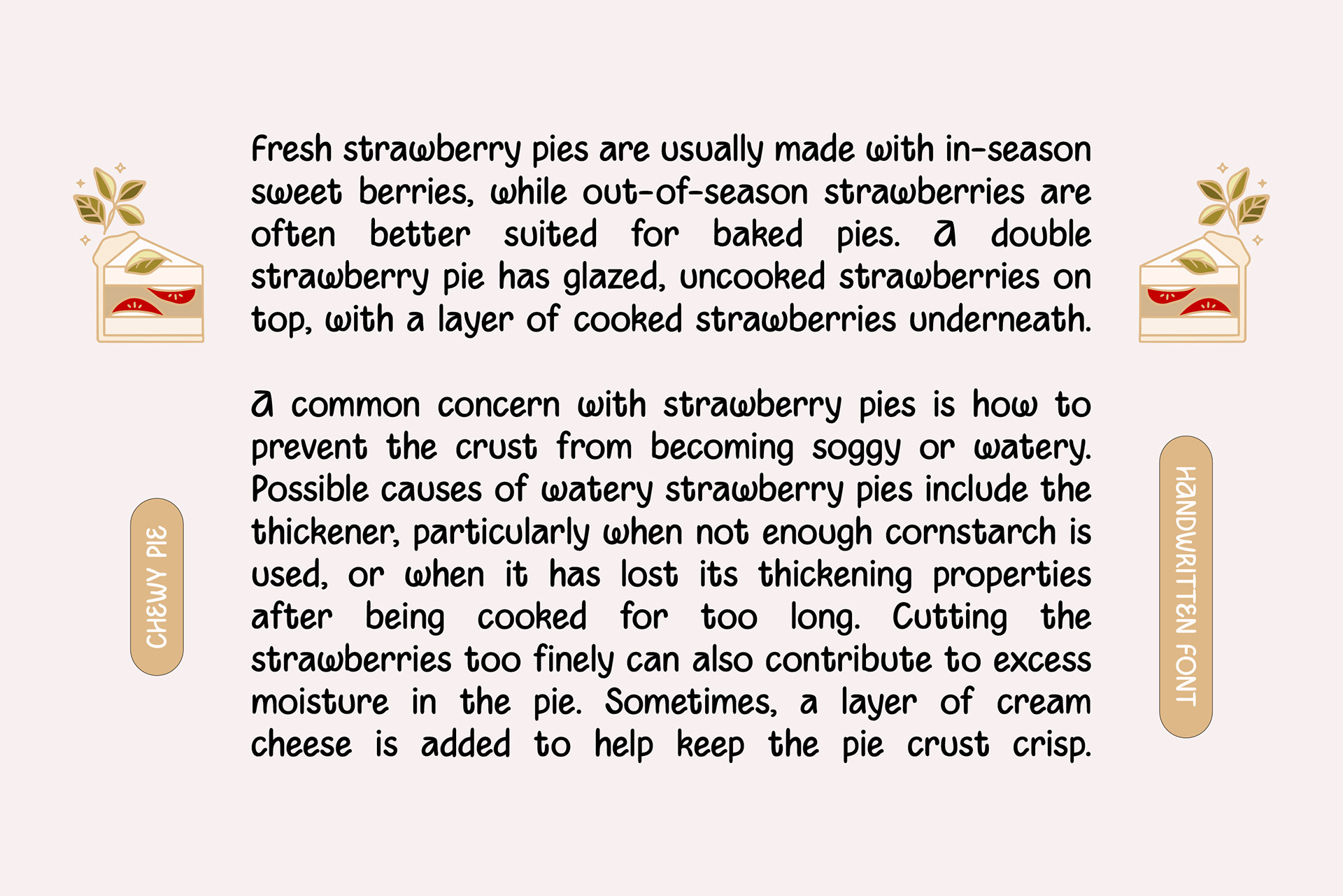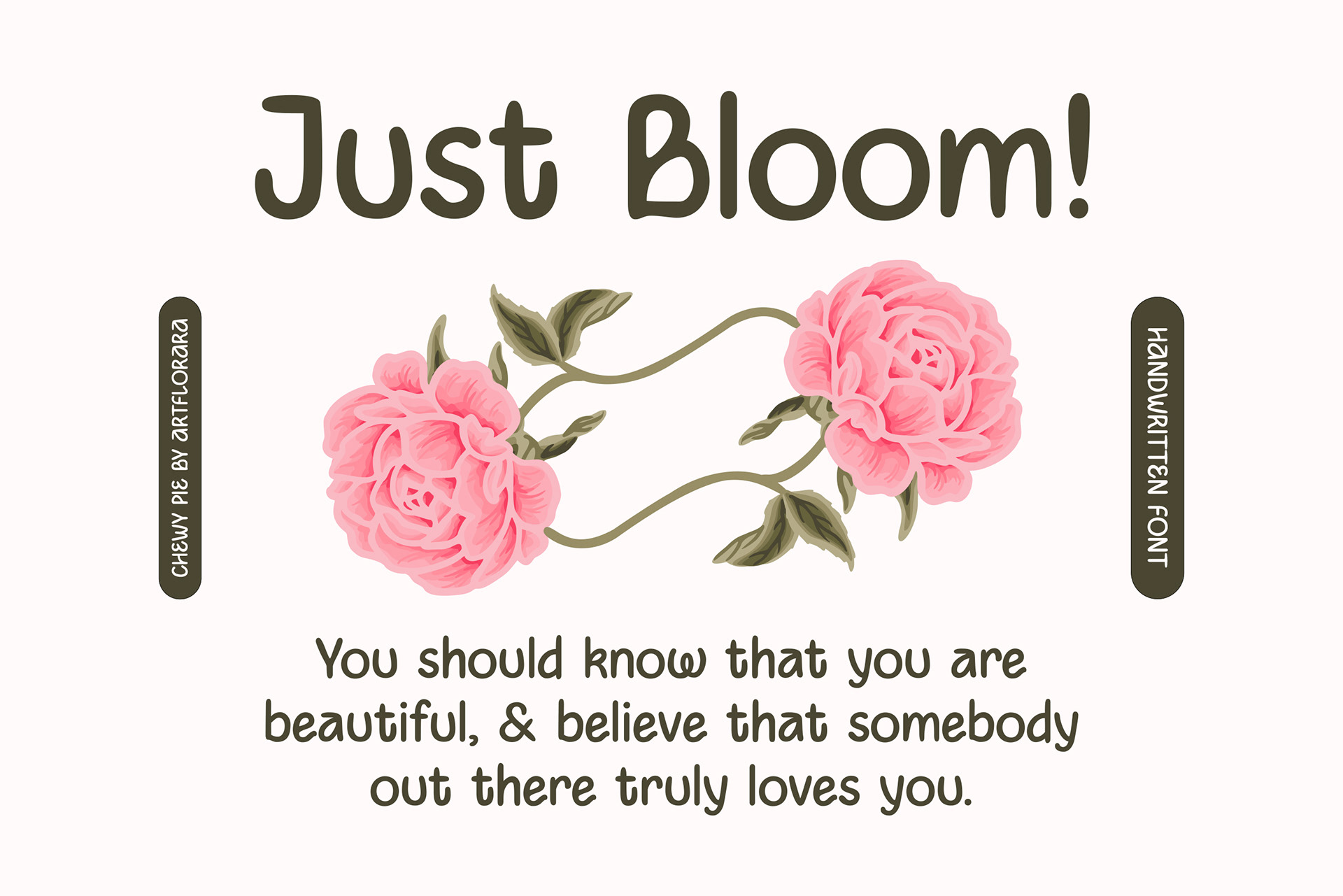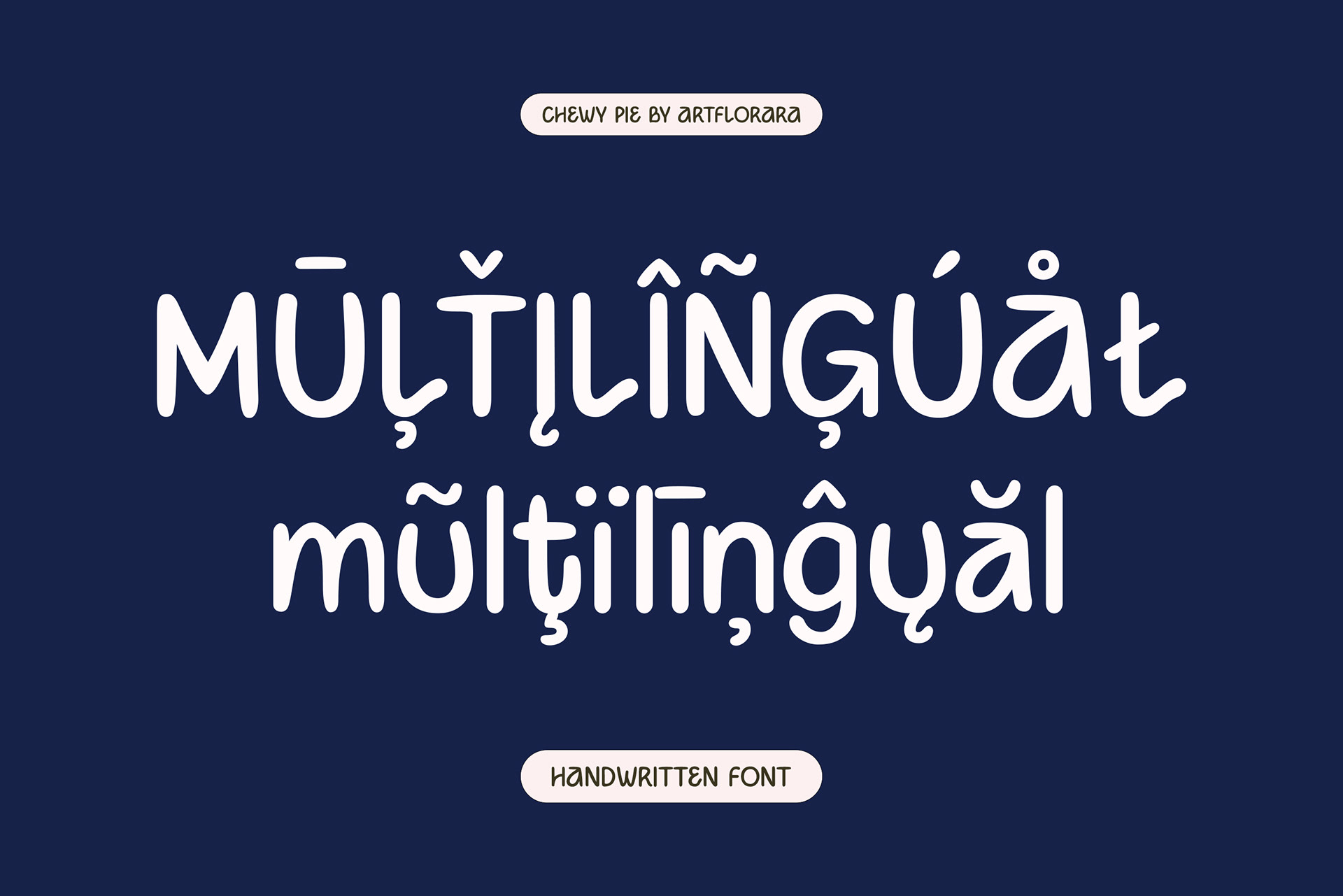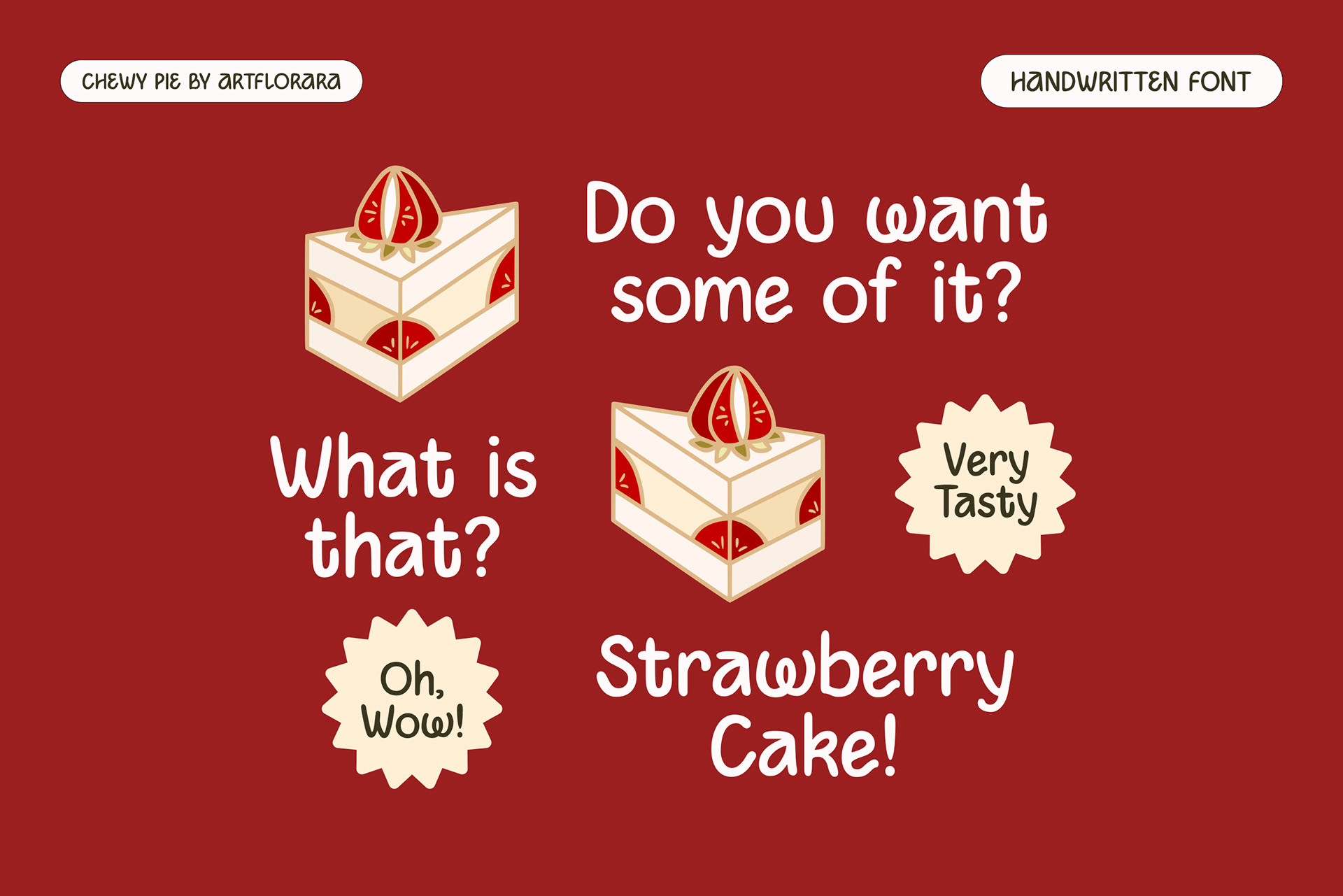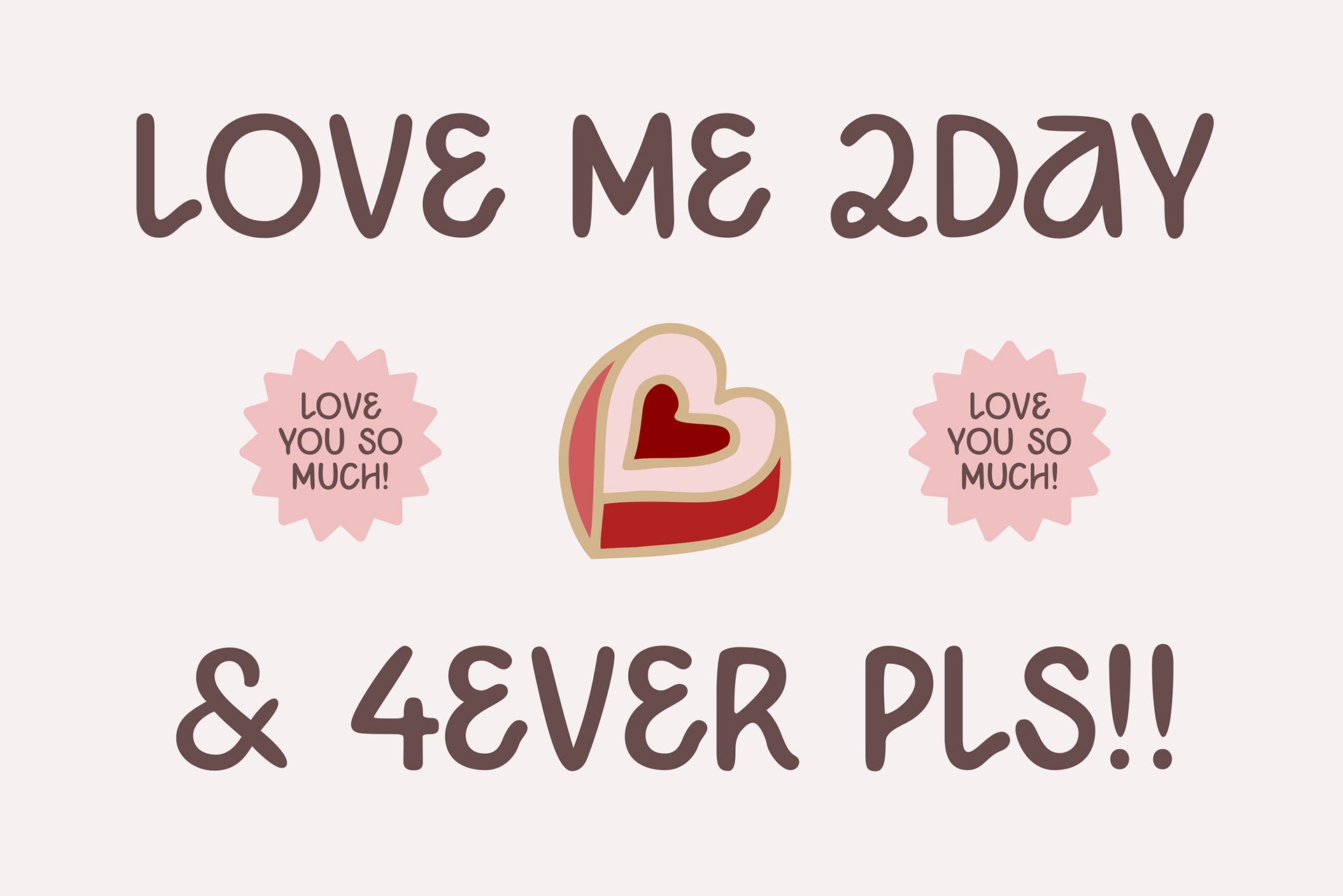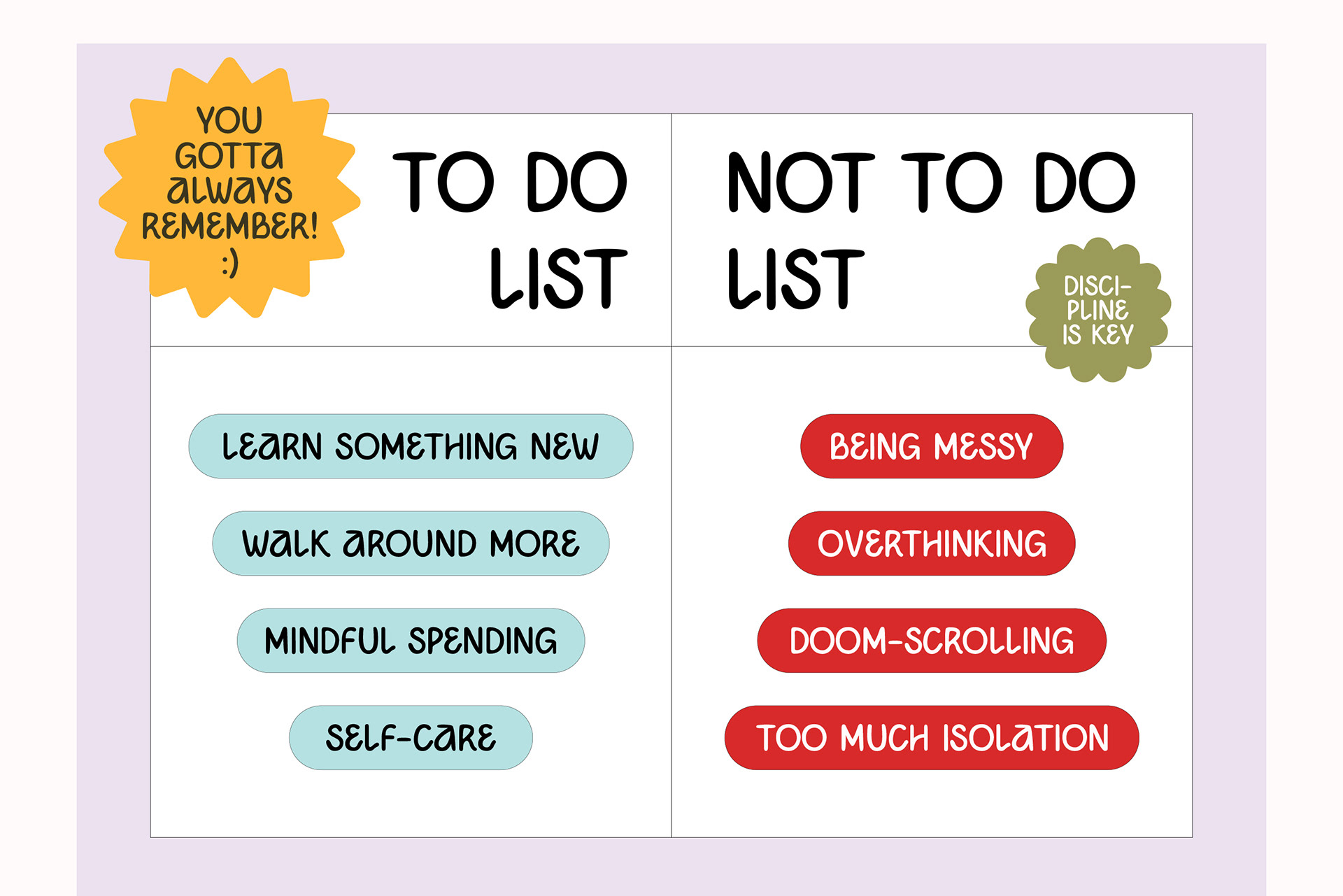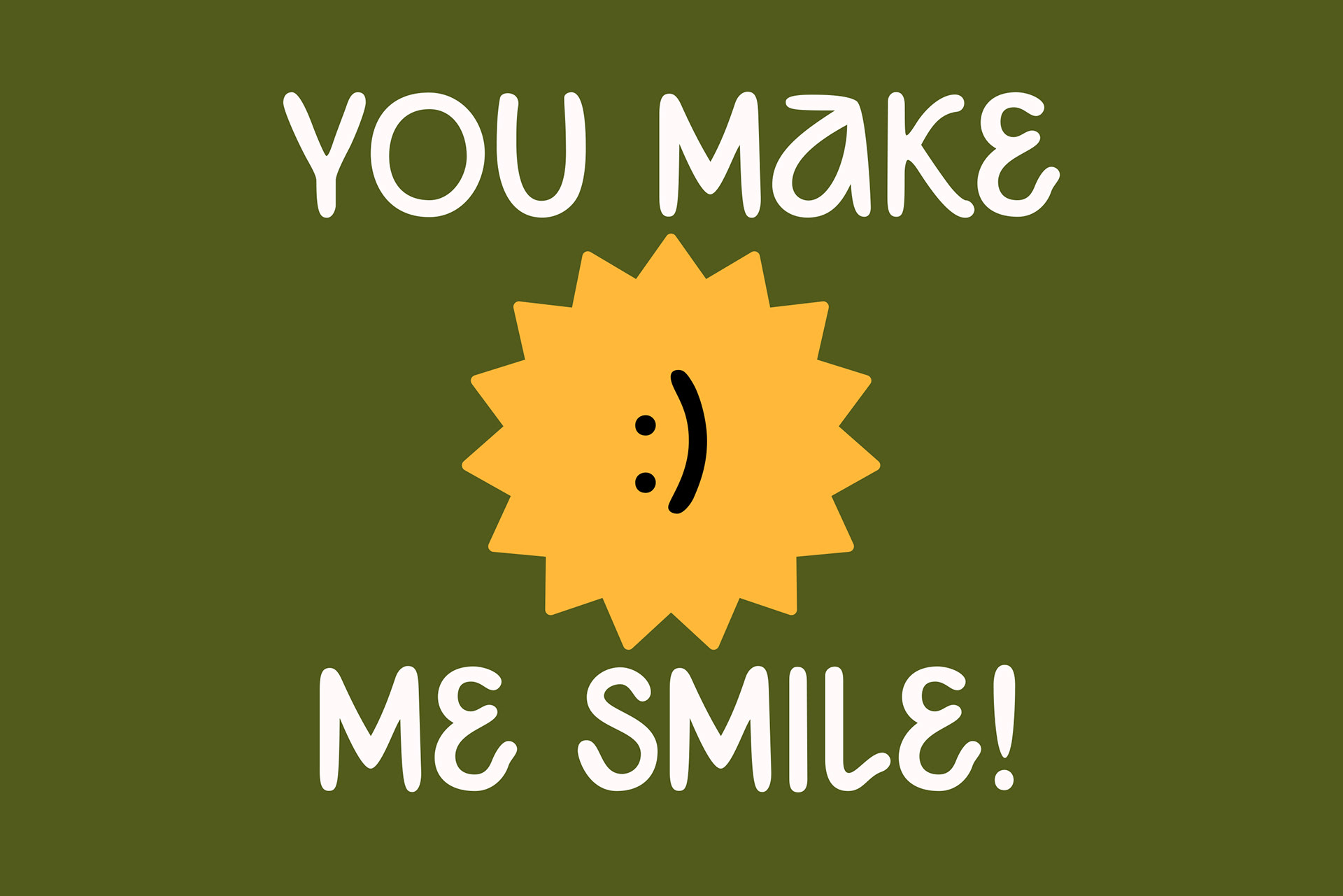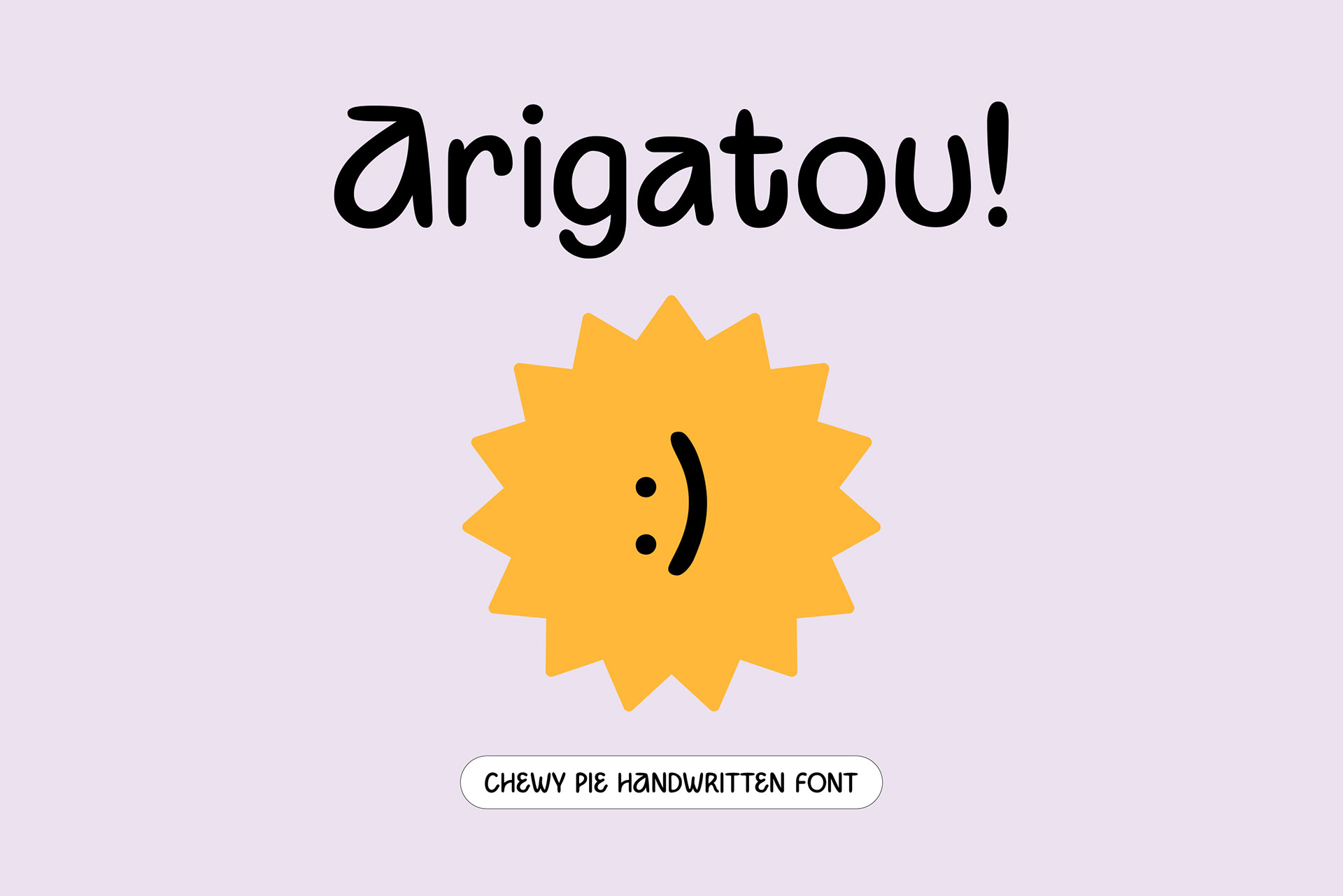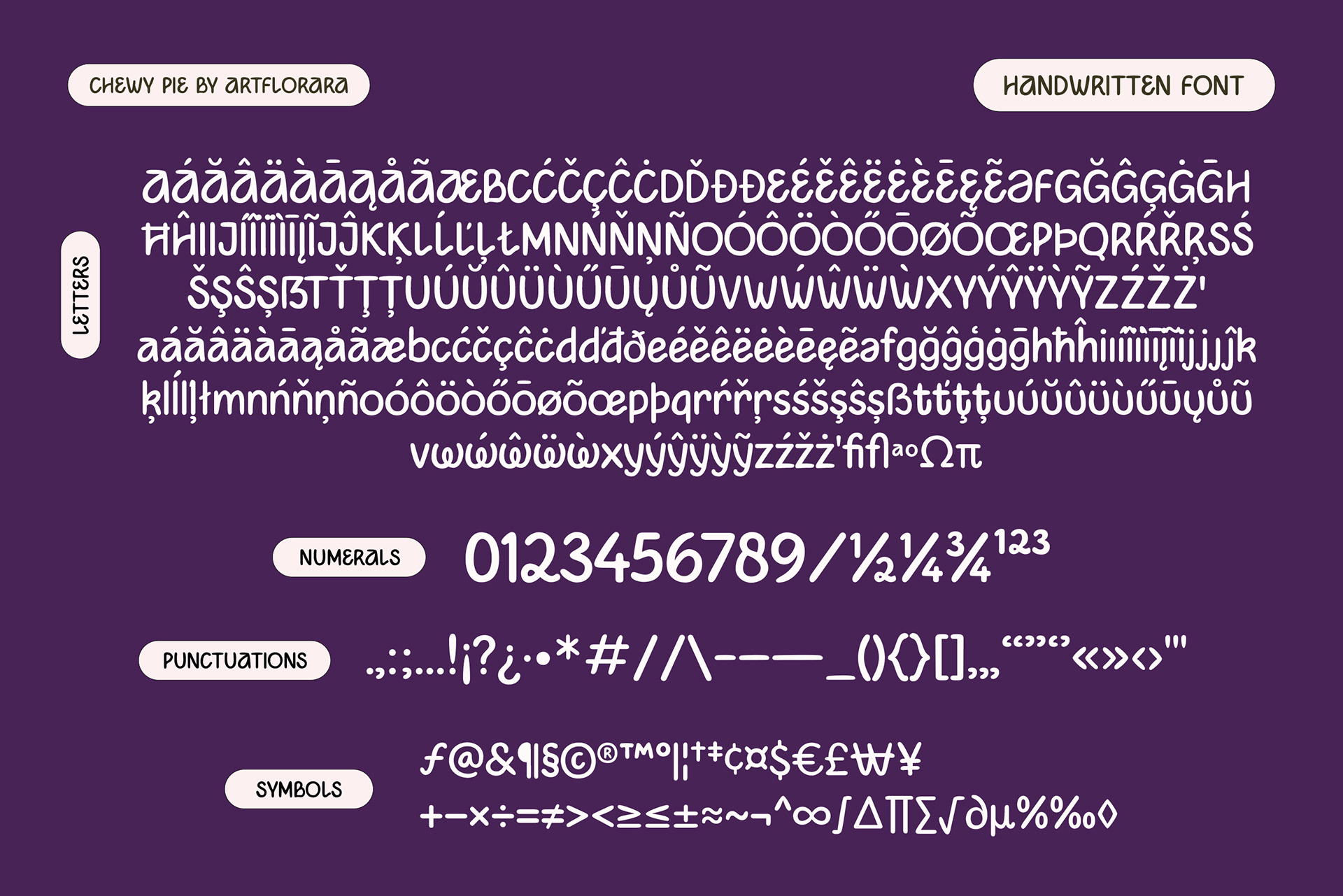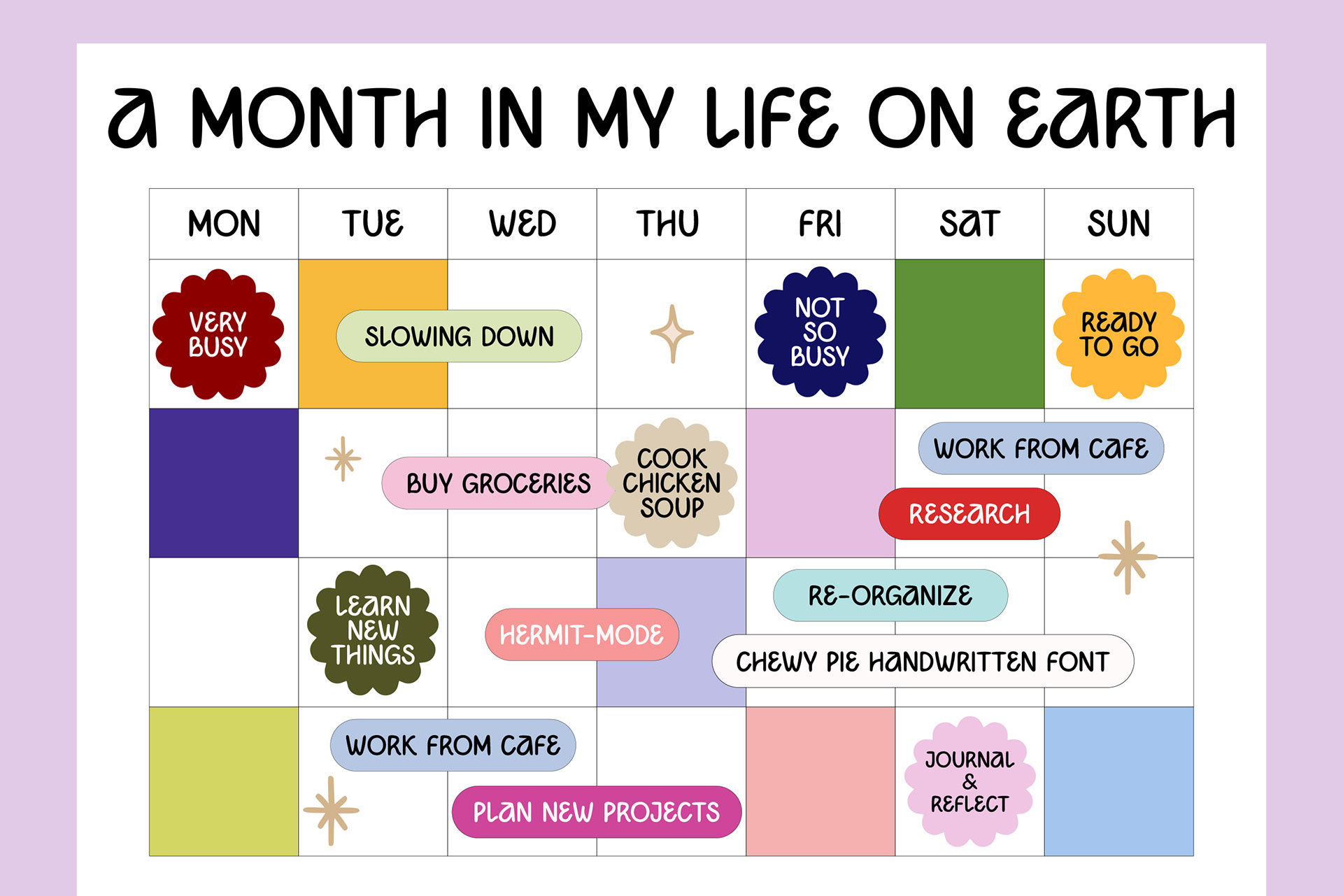
CHEWY PIE - Cute Handwritten Font
Chewy Pie is a handwritten font with playful, childlike vibes. The strokes within the characters give a natural, clean, and friendly quality that embodies simplicity.